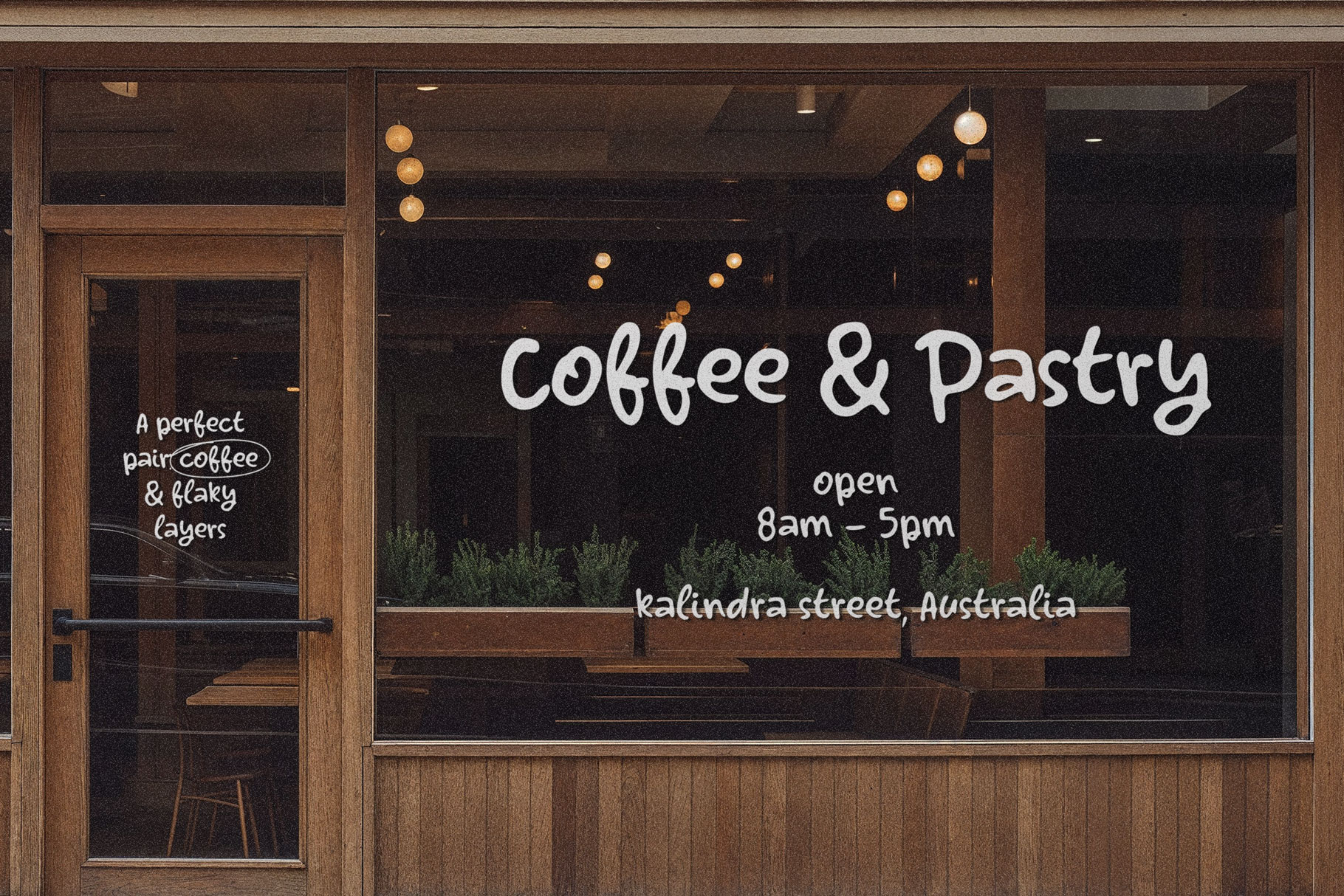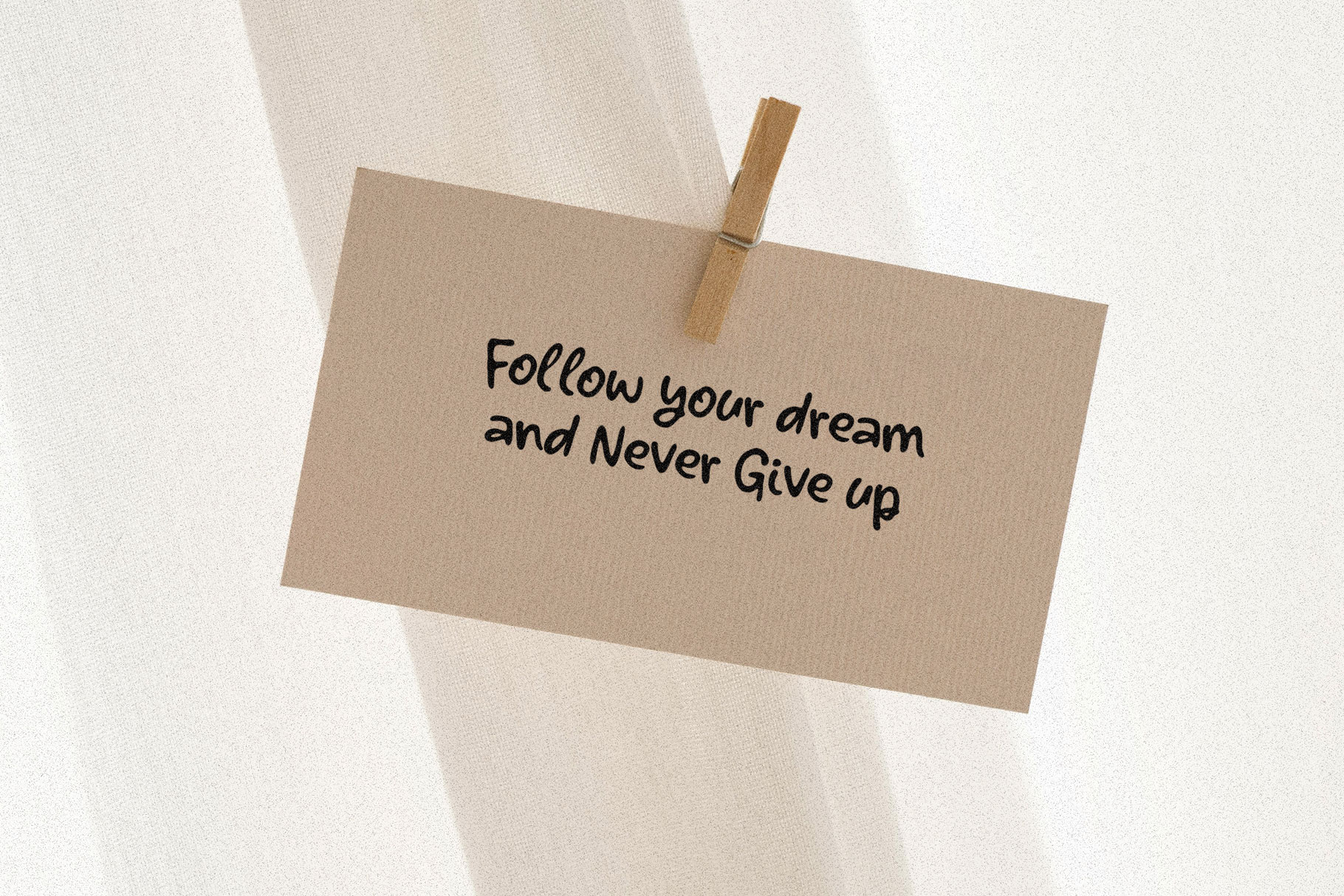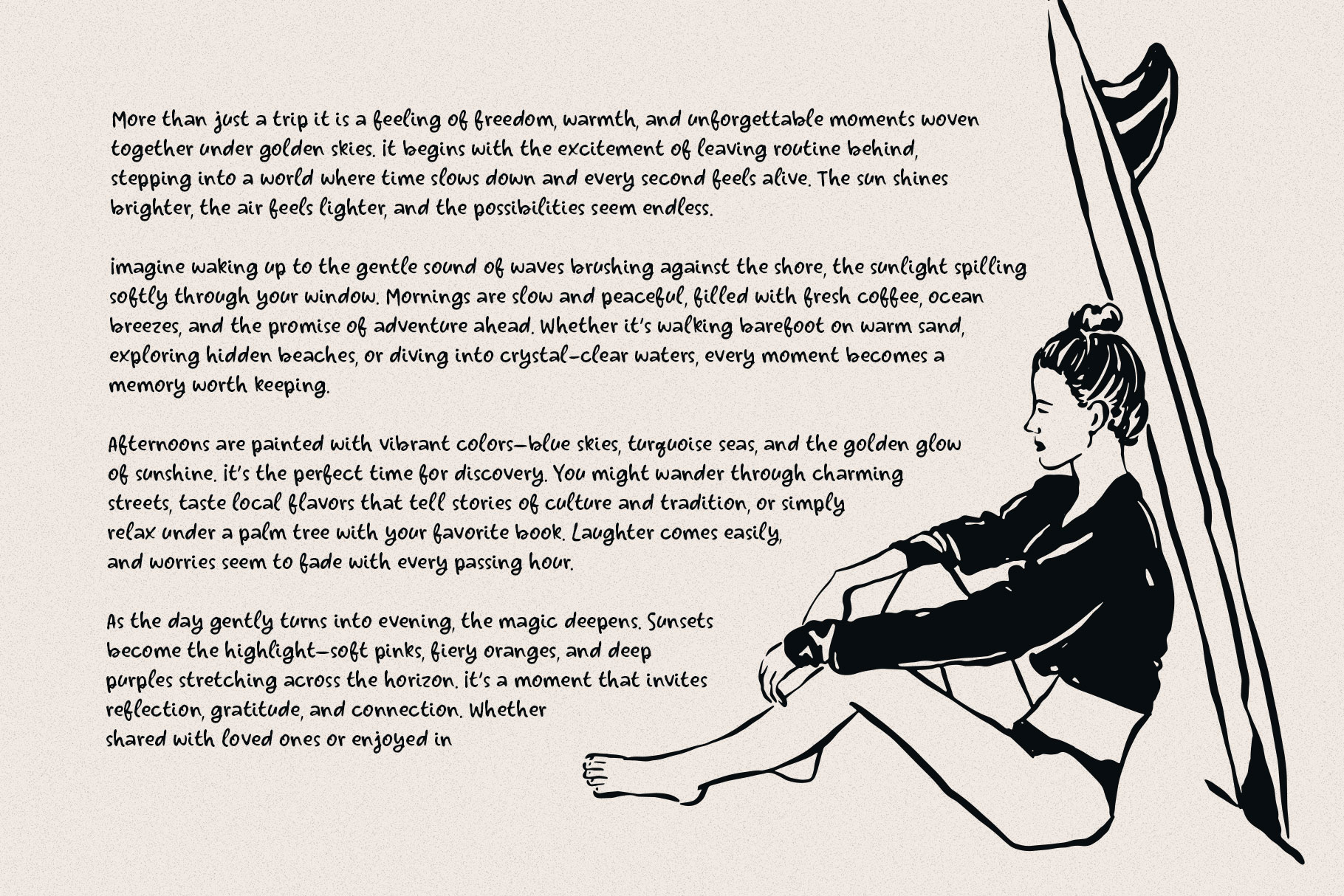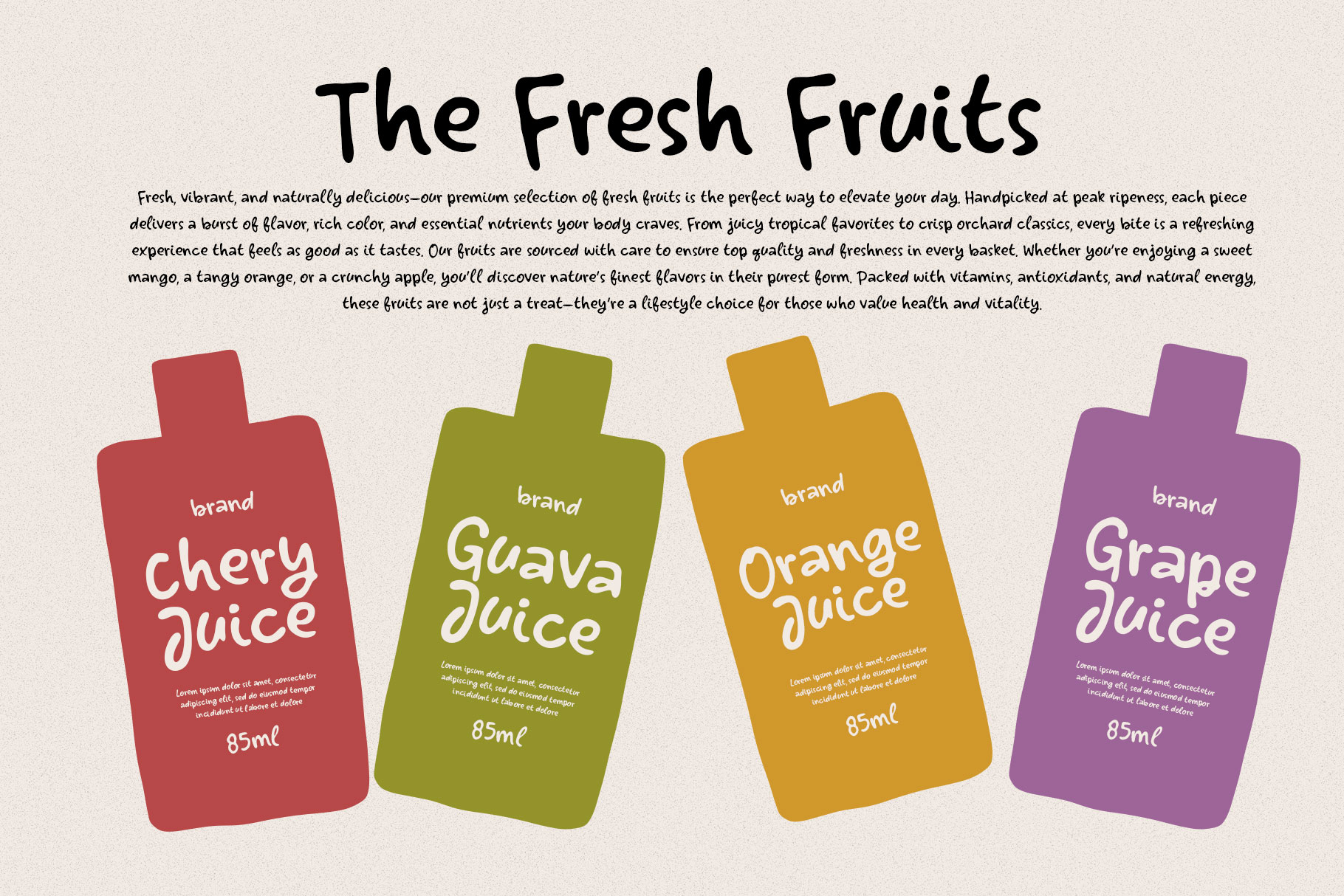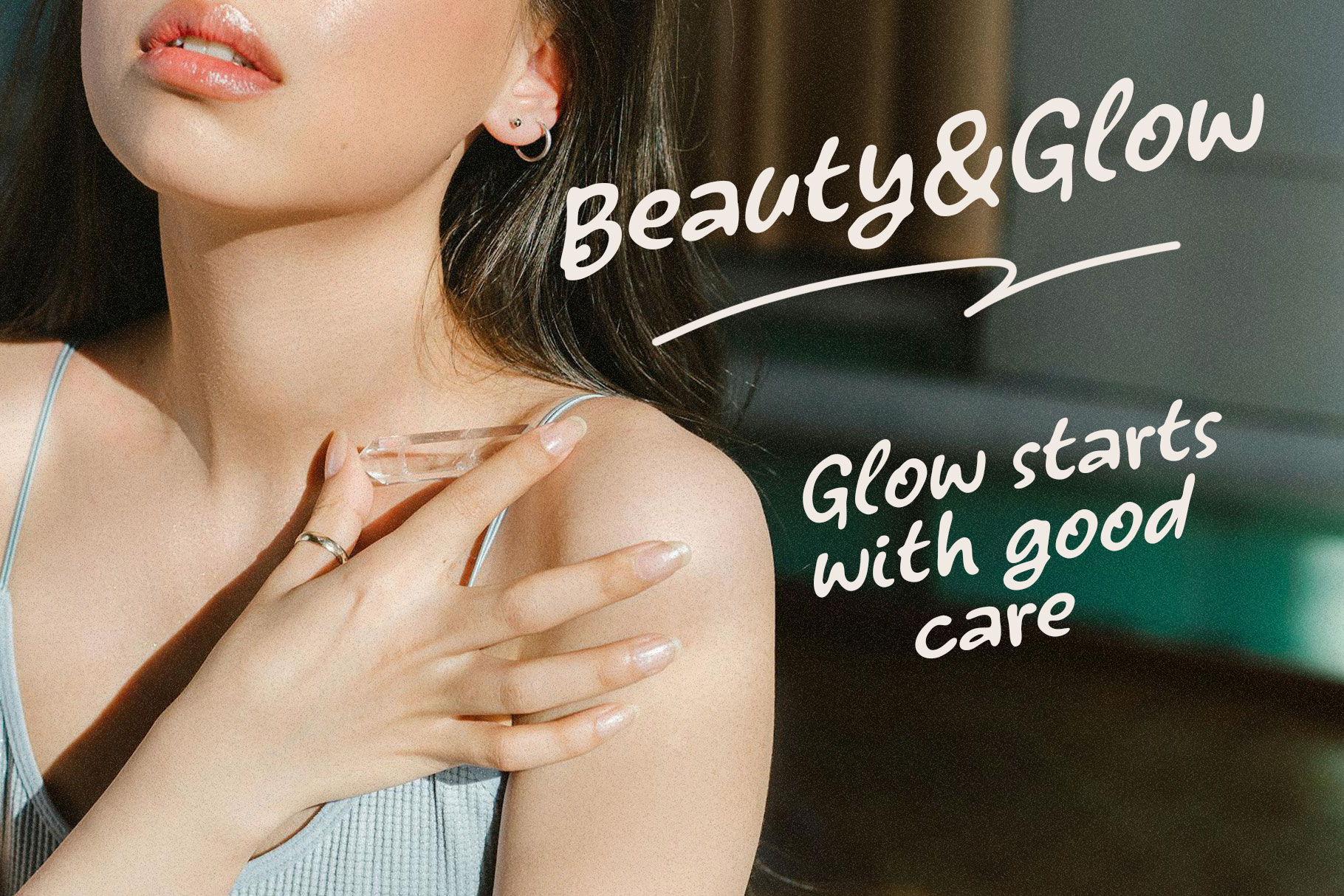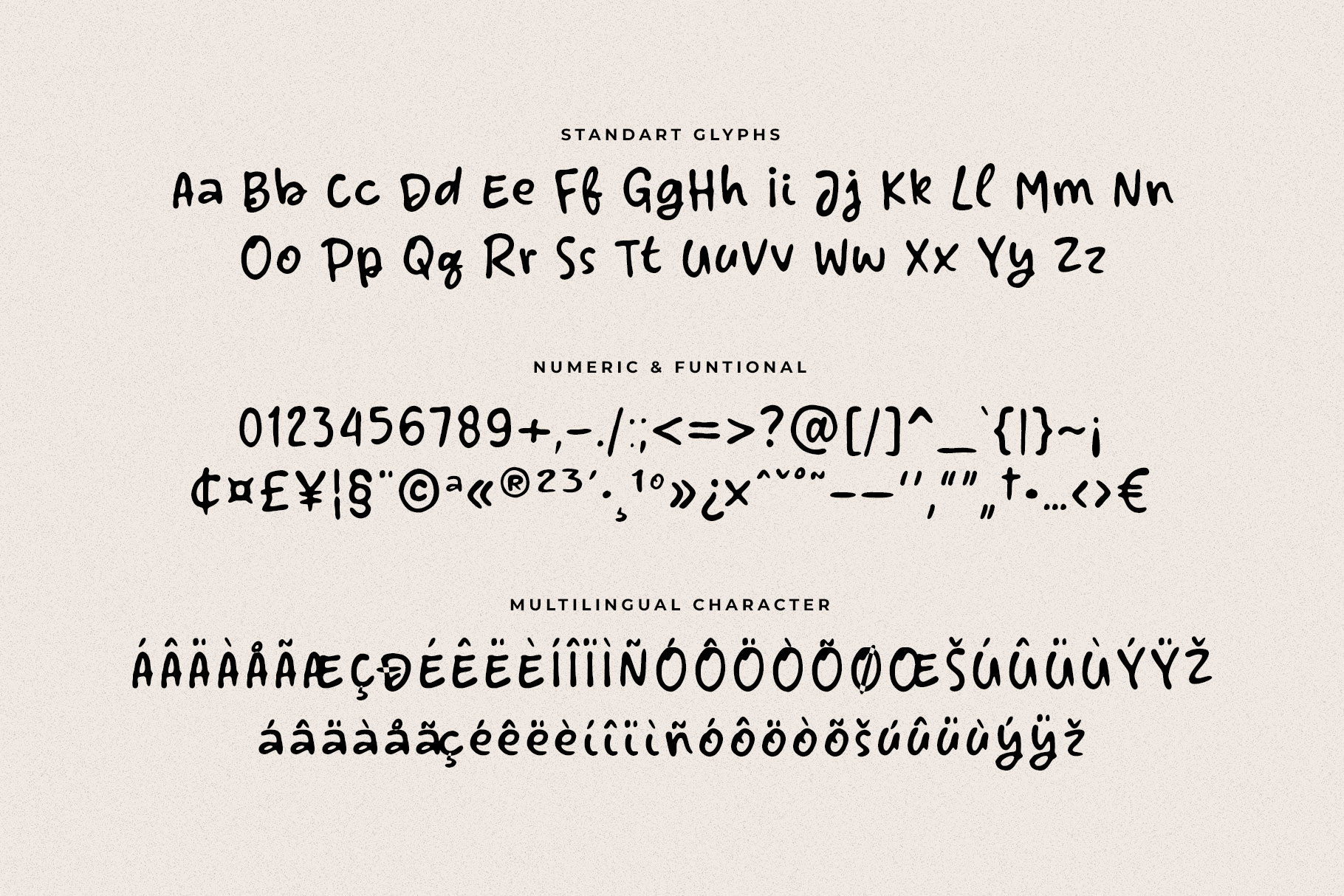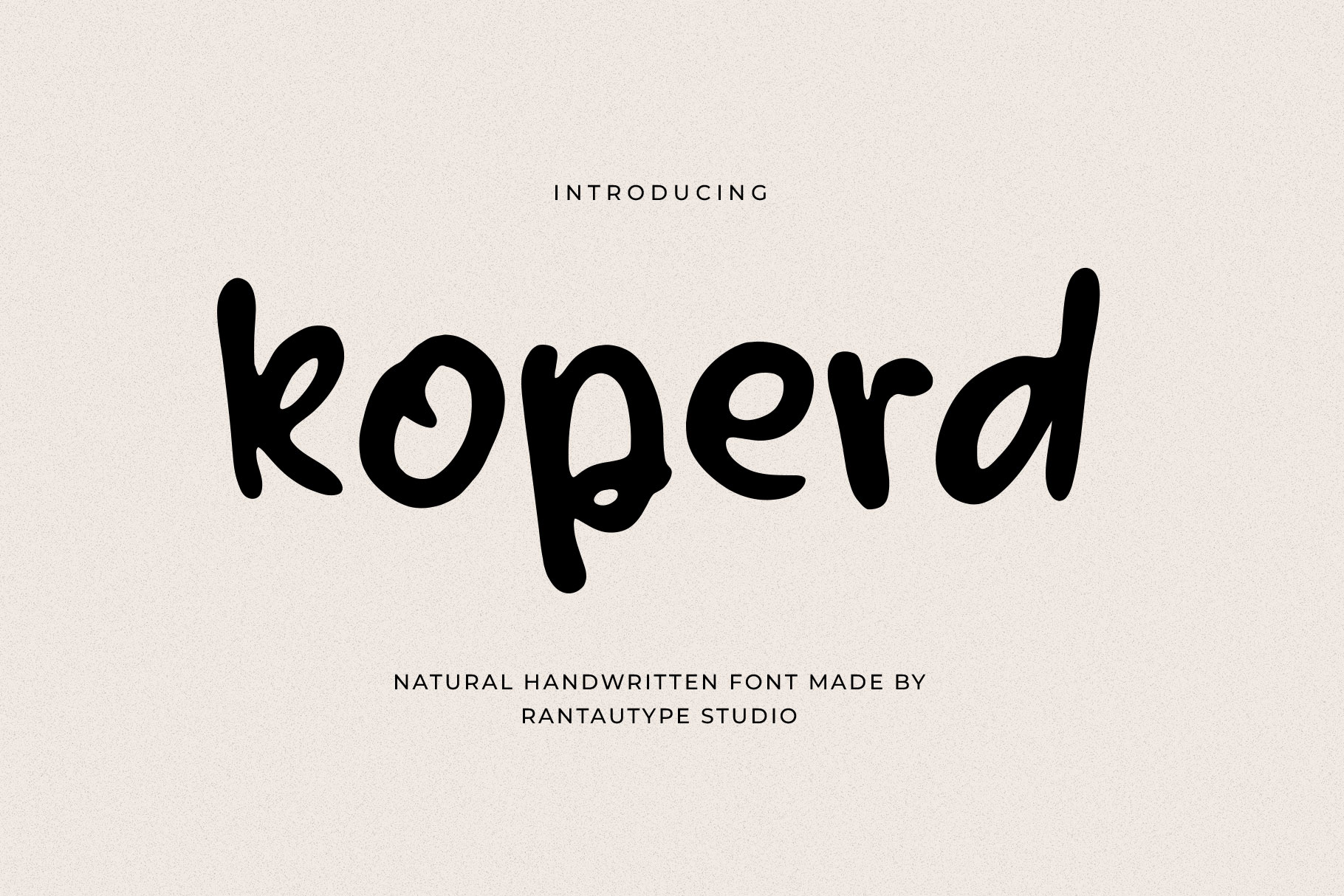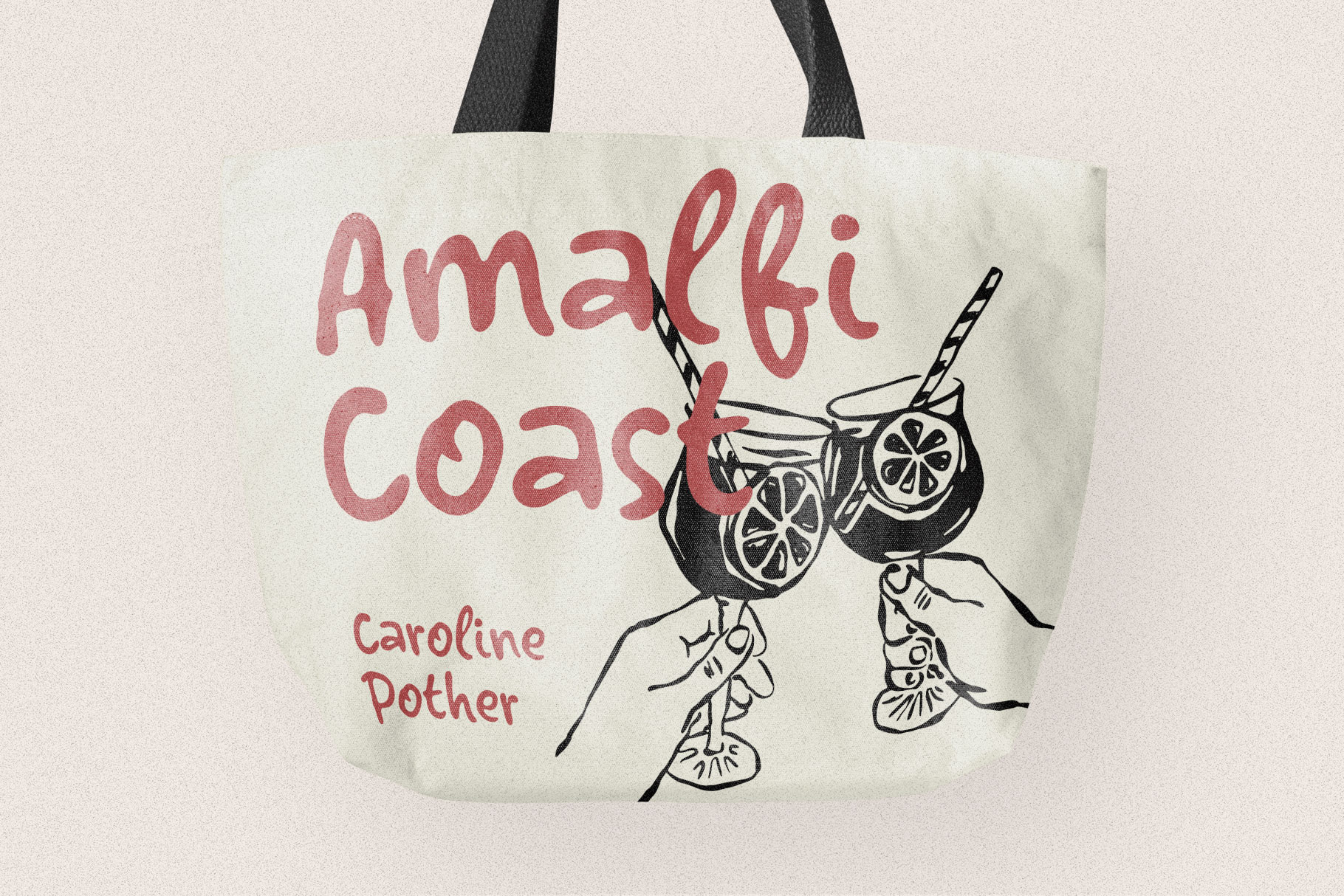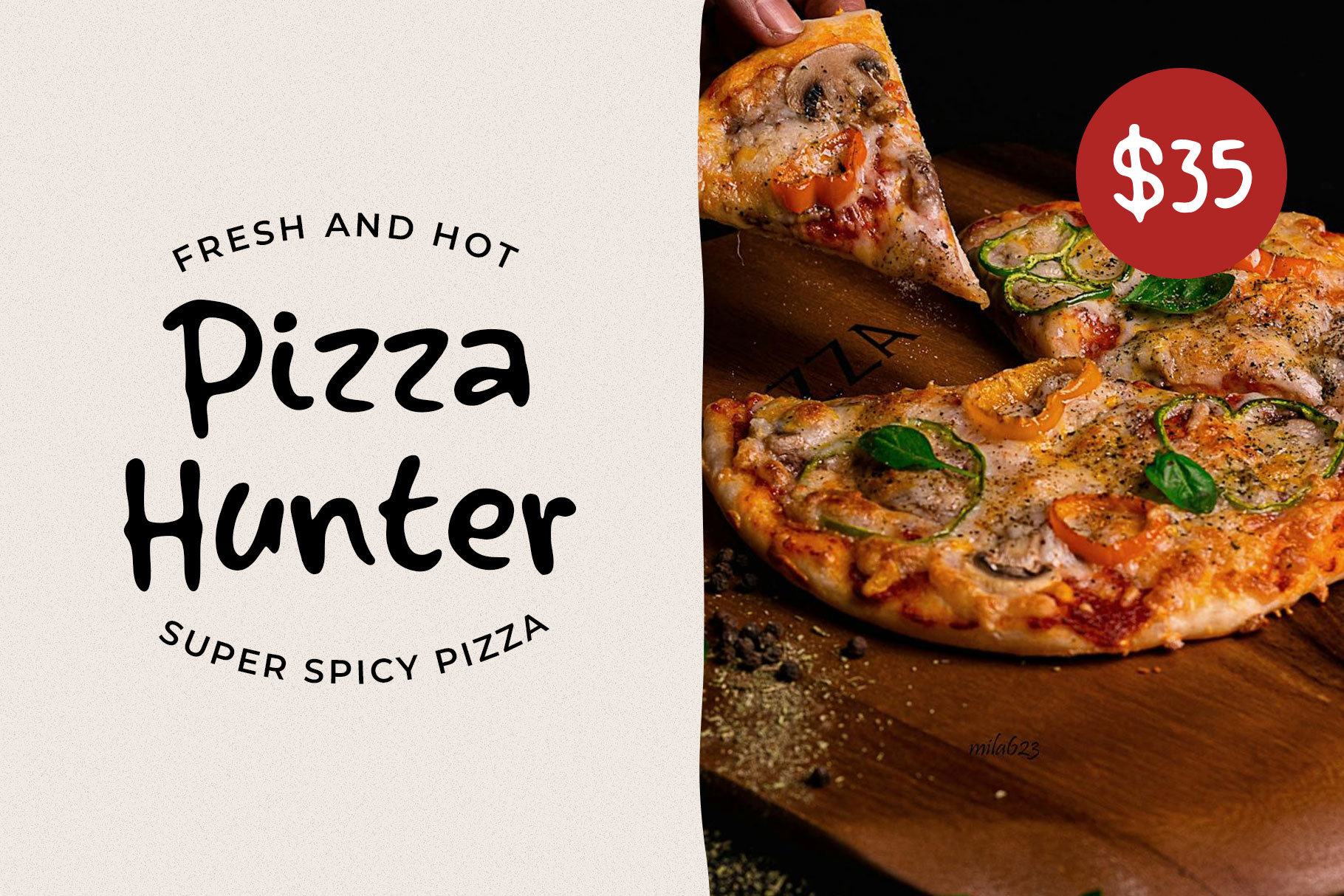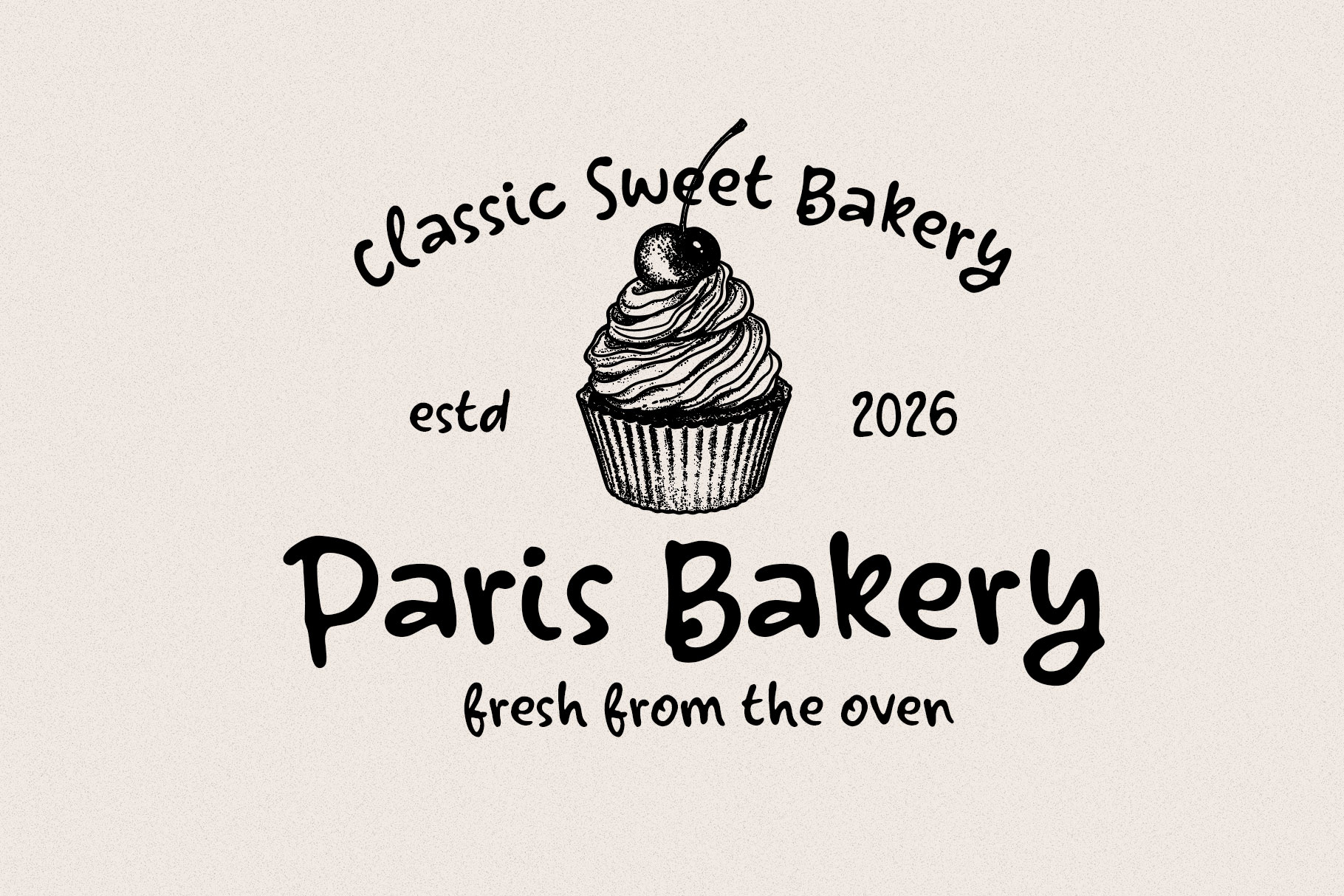
Koperd Natural Handwritten Font
Koperd is handwritten font captures the effortless beauty of real pen-on-paper expression, bringing warmth, authenticity, and personality into every design. Inspired by organic strokes and the fluid movement of handwriting.
Koperd come with confident and strong brush character. Harca is a perfectly choice for any creative endeavor, creating, modern, lifestyle design such as logotype, title, cover, branding, invitations, wedding designs, display and magazine, social media posts, advertisements, printed quotes, product packaging, corporate brand, product designs, labels, photography, watermarks, special events and any other project with modern touch.